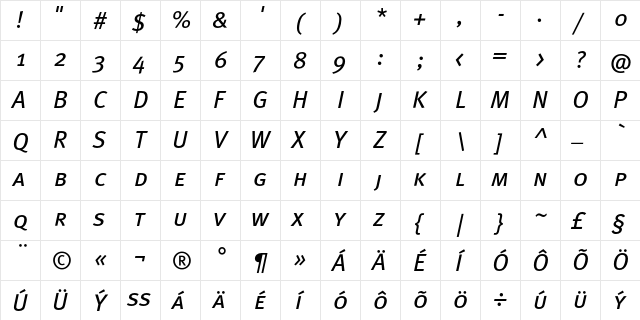
MetaBookCE ItalicCaps Font Preview
MetaBookCE ItalicCaps
Design Context for MetaBookCE Typeface
MetaBookCE takes a measured approach to typography — its balanced proportions and neutral character make it a reliable workhorse for both digital and print work. The slanted form adds forward momentum and visual energy.
Pro Tip: Try MetaBookCE for annotation and caption copy alongside an upright companion — the contrast in angle creates a dynamic but ordered typographic system.